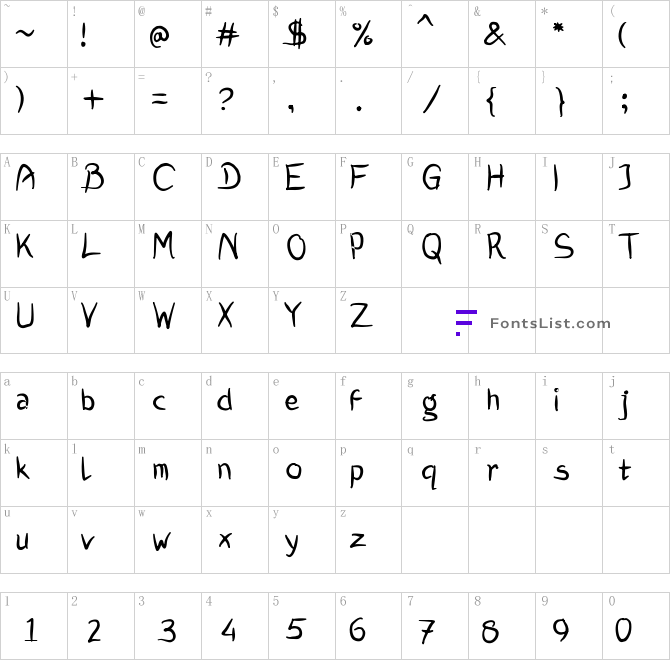
- Font Name:Asal
Asal.ttf is a very beautiful artistic font, Asal.ttf is widely used in the design and printing of various books and pictures,Asal.ttf has a strong visual impact,Asal.ttf is a commonly used font in newspapers, magazines and books, and is used in posters, e-commerce Poster design, store design, logo design, font design and other fields.Asal.